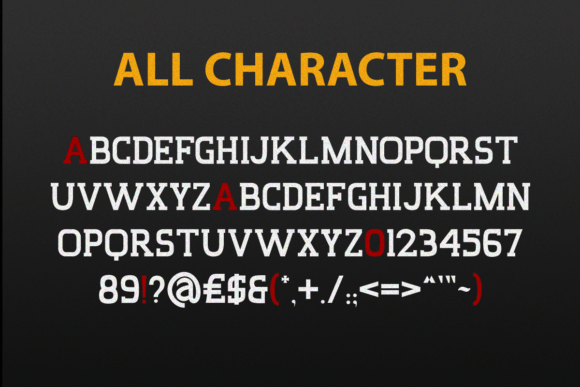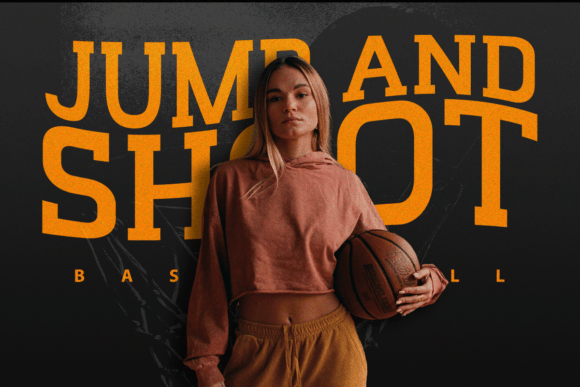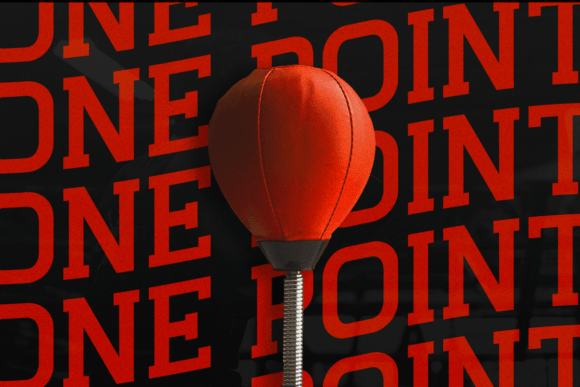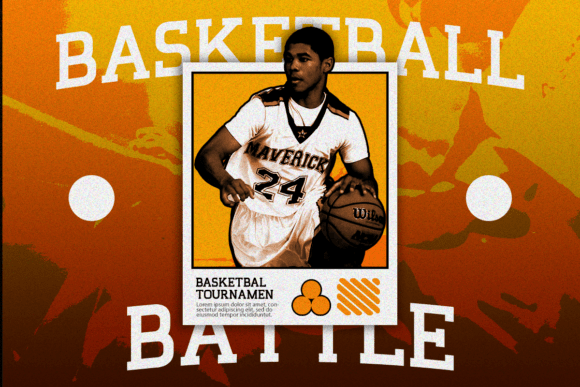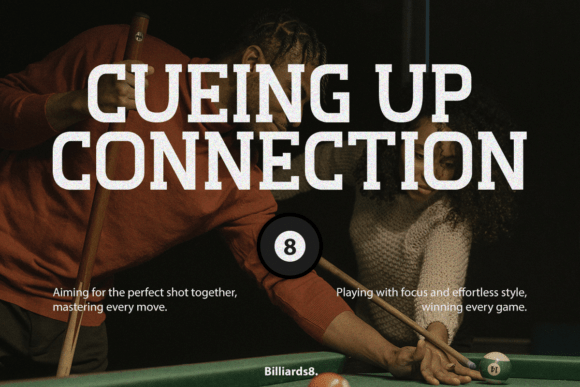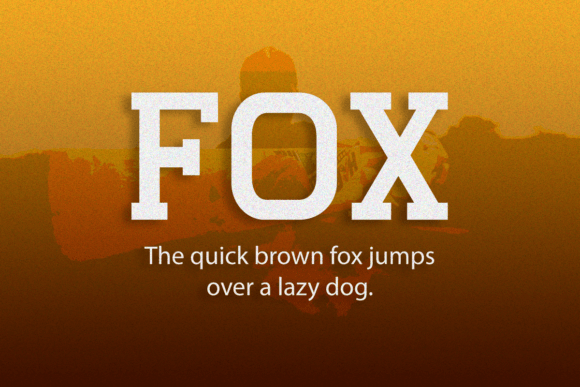
Unlocking the Power of Maxuire Font
Have you ever found yourself staring at a blank page, desperately searching for the perfect font to elevate your creative project? The blank slate can be daunting, but what if I told you there’s a font that can transform your design into a showstopper? Enter Maxuire Font, a bold and powerful slab serif typeface that demands attention and commands respect.
Designed to evoke the energy of athletic branding and vintage sports posters, Maxuire Font is the perfect solution for designers looking to add a touch of confidence and strength to their layouts. With its square serif details and solid geometric structure, this font is ideal for dynamic headlines, editorial titles, and any project that requires a loud and proud statement.
Key Features of Maxuire Font
- High-resolution design, suitable for both screen and print applications.
- Unique, modern aesthetic, making it an excellent choice for contemporary design projects.
Honest Review: Maxuire Font
I recently had the chance to experiment with the Maxuire Font, and I must say it’s been a pleasant experience. This free download has been a great addition to my design arsenal, especially for creative projects where I need a unique and eye-catching font.
- ✨ High-quality design: The Maxuire Font boasts a clean and modern design that’s perfect for both digital and print media.
- ✨ Transparent background: The transparent background option allows for seamless integration with any design element, giving me more flexibility in my creative projects.
- ✨ Versatility: This font is suitable for a wide range of applications, from headings to body text, making it a great all-around design resource.
- ⚠️ Limited language support: The Maxuire Font seems to be primarily designed for Latin-based languages, which may limit its use for non-Latin scripts.
- ⚠️ Limited character set: While the font has a decent character set, it’s not as extensive as some other fonts in its class.
Overall, I’m impressed with the Maxuire Font’s potential and would definitely recommend it to designers looking for a high-quality, free design resource. With some minor tweaks to address the limitations, I believe this font could become a staple in many designers’ collections.
Maxuire Font
Tips for Getting the Most Out of Maxuire Font
To get the most out of the Maxuire Font, use it in combination with other design elements, such as images and shapes. Experiment with different font sizes and colors to create visually appealing designs.
The Maxuire Font is perfect for a variety of creative projects, including graphic design, digital art, and even print materials. Its high-quality features and transparent background make it a versatile design resource.